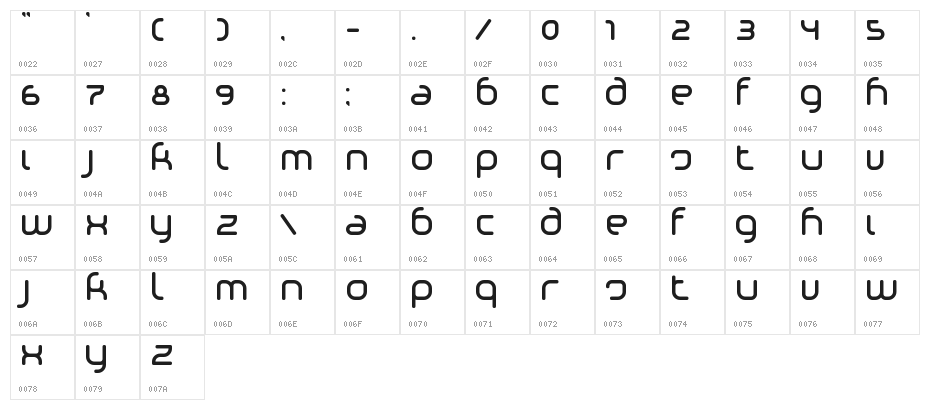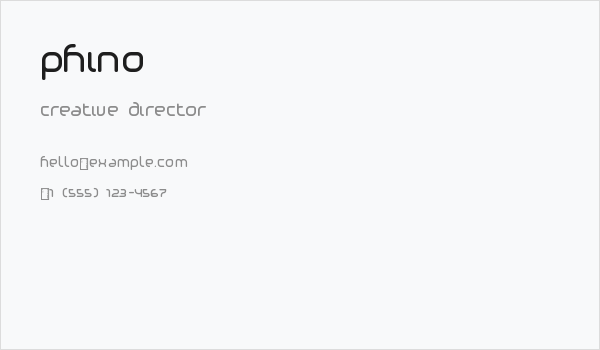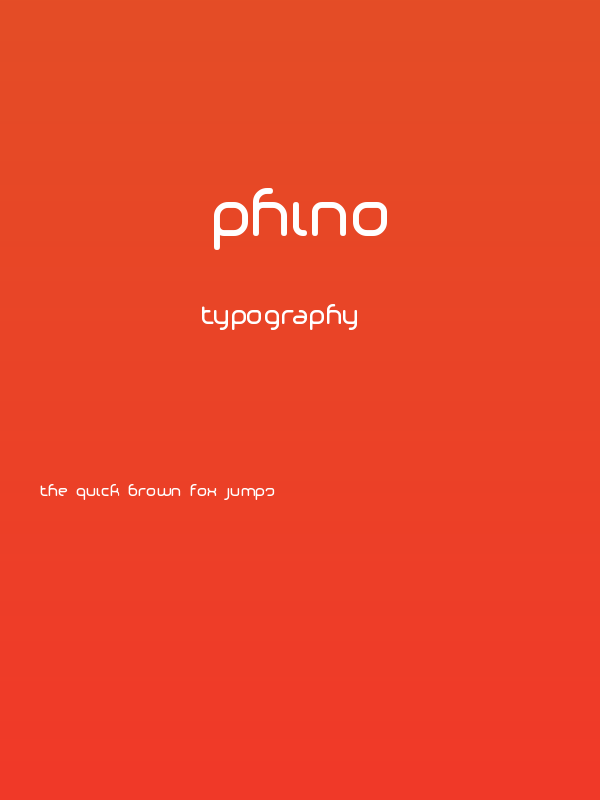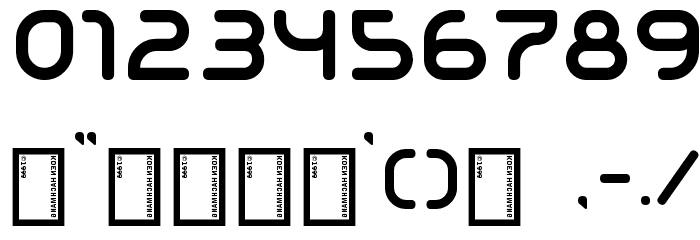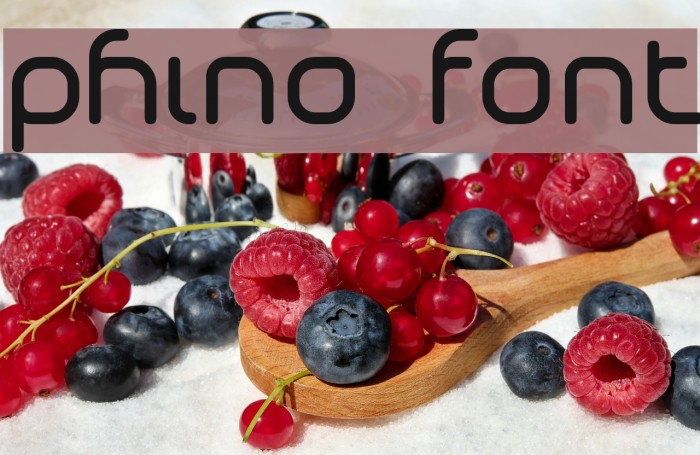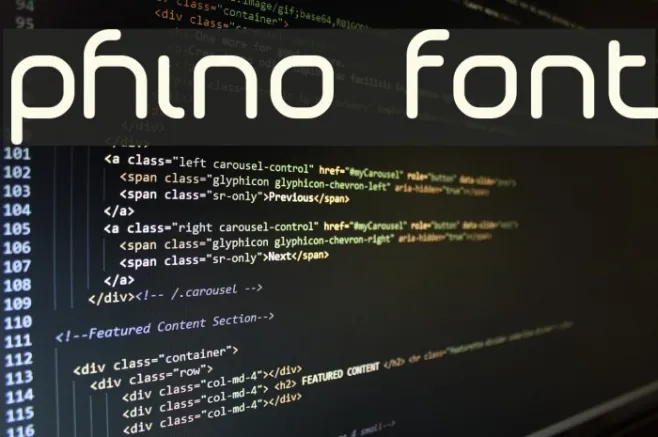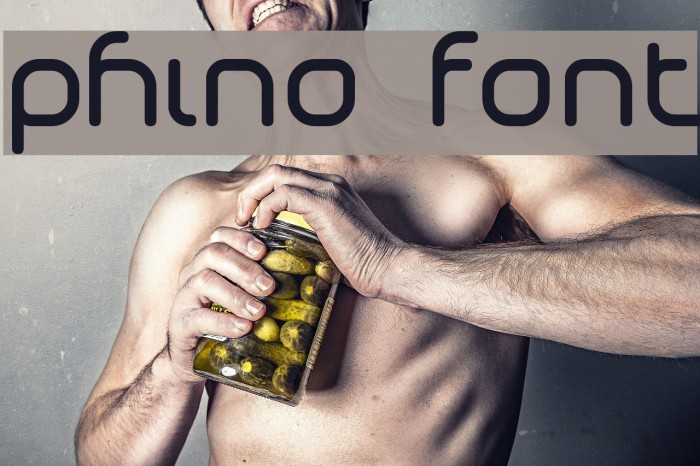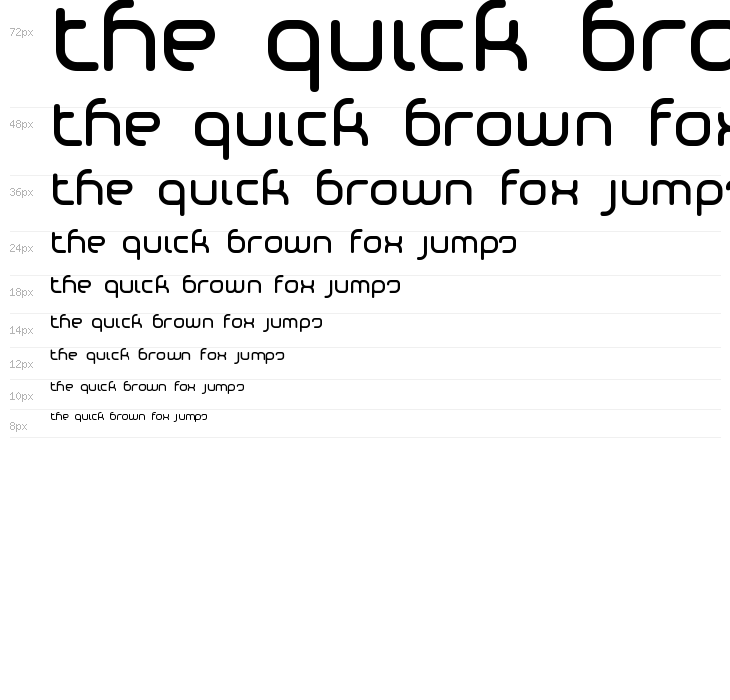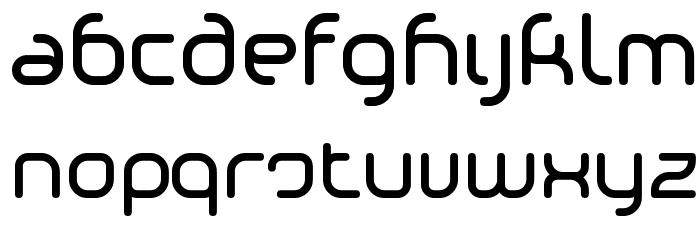
Phino Font
Phino Description
This font features a modern and sleek design with rounded edges and a geometric structure. The characters are uniform in width, creating a harmonious and balanced appearance. The lowercase letters have a consistent height, while the uppercase letters maintain a similar width, contributing to a cohesive look. The numerals are bold and clear, making them easily readable. Special characters are designed with the same rounded and geometric style, ensuring consistency across the font. The overall appearance is clean and contemporary, suitable for various digital and print applications.
| Use Case | Headlines, Logos, Digital interfaces |
| Proposed Projects | Ideal for tech branding, digital interfaces, modern advertising, and minimalist design projects. |